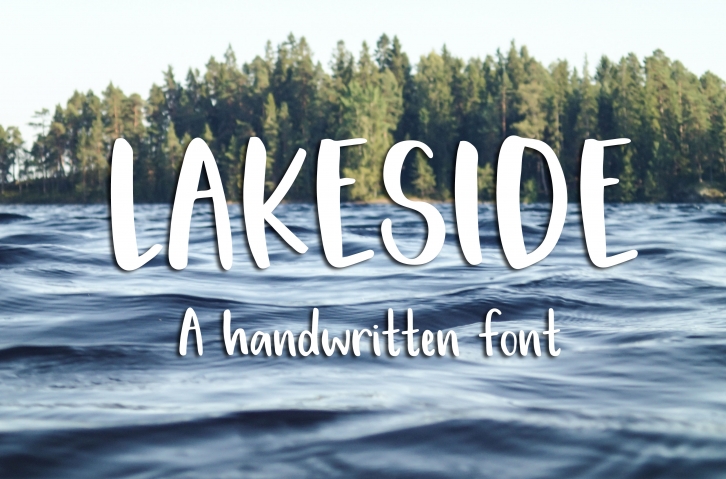
Lakeside is a trendy and unique font with an authentic style. It was designed by Dansie Design and it's a great choice for creative people who need such a font. It was released on November 16, 2017 and the file size is 9.17 MB. Lakeside will add an organic vibe to any design idea!